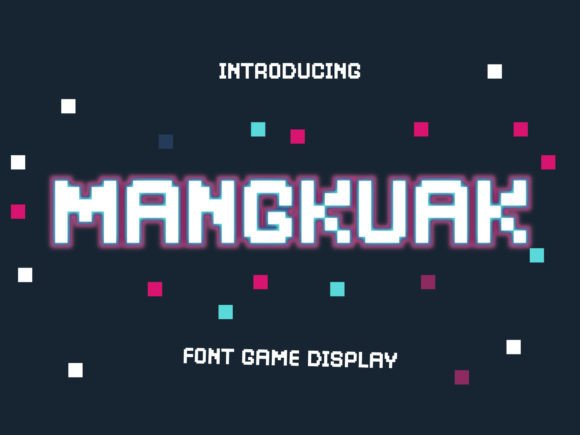
Introducing the Mangkuak Font Family, a Typography Masterpiece!
Step into a world of captivating typography with Mangkuak Font, a stunning display typeface that will elevate your designs to unmatched heights. Expertly crafted by our skilled designers at Artnivora.std, this font family boasts a unique game-inspired style, making it the perfect choice for those seeking to make a bold statement in their designs.
With Mangkuak's meticulously crafted characters, you'll turn heads and leave a lasting impression in the world of graphic design. From eye-catching logos that command attention to captivating brochures that evoke emotions, Mangkuak empowers you to unleash your creativity and leave a mark on your audience.
Whether you're a seasoned designer or just starting your typographic journey, Mangkuak Font is the perfect tool to add a touch of daring and excitement to your designs. Its versatility extends to a wide range of projects, allowing you to effortlessly elevate magazines, social media posts, and more.
Experience the allure of Mangkuak Font today and unlock a world of endless design possibilities. Let your imagination soar and create stunning visuals that will captivate and inspire.